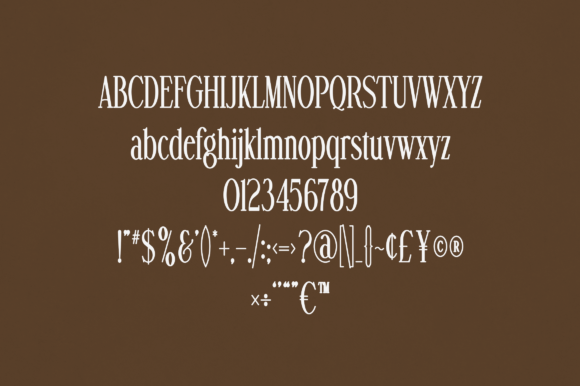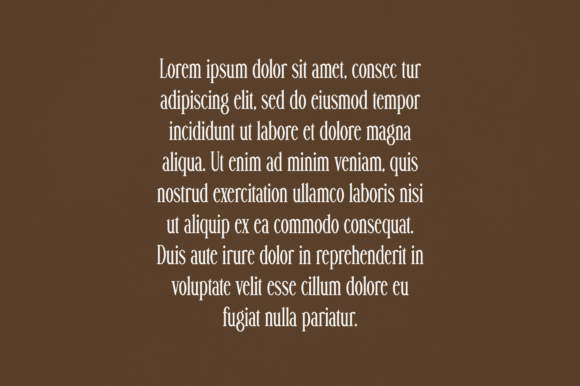
Introducing Emilien Font: Elevate Your Typography with Elegance and Versatility
In the world of typography, a font can make or break the visual identity of a design project. For designers and crafters seeking to add a touch of sophistication and uniqueness to their work, Emilien Font emerges as an exceptional choice. This elegant and versatile serif font is designed to transform your typography into something truly remarkable, making it perfect for a wide range of applications.
Unleash Your Creativity with Emilien Font
Emilien is not just a font; it’s an invitation to explore the vast possibilities of typography. Its elegant serifs bring a sense of tradition and reliability, while its versatile nature allows it to adapt seamlessly to various design contexts. Whether you’re working on a logo, branding project, headline, or plain text, Emilien Font promises to add a distinctive flair that sets your work apart.
One of the standout features of Emilien Font is its adaptability. It’s a font that can effortlessly transition from one project to another, always bringing its unique charm. Here are some of the areas where Emilien truly shines:
- Branding Projects: Establish a strong and elegant brand identity with Emilien. Its sophisticated look makes it ideal for companies looking to convey a sense of luxury, tradition, or reliability.
- Home-ware Designs: Add a touch of class to your home-ware designs. Emilien’s elegant serifs complement a wide range of styles, from modern to vintage.
- Product Packaging: Stand out on the shelves with packaging that exudes elegance and sophistication. Emilien can help elevate your product’s visual appeal.
- Magazine Headers: Create captivating headers for your magazine or editorial projects. Emilien’s versatility ensures it works well in both digital and print formats.
- Text Overlay: Use Emilien as a stylish text overlay on any background image. Its clear and elegant letterforms ensure readability while adding aesthetic value.
Why Choose Emilien Font?
Choosing a font for your project can be a daunting task, given the numerous options available. However, Emilien Font offers several compelling reasons to consider it for your next design:
- Elegance: Emilien brings an unmatched level of elegance to your typography, making your designs more engaging and sophisticated.
- Versatility: Its adaptability to various design contexts and styles makes Emilien a valuable addition to any designer’s toolkit.
- Uniqueness: With Emilien, you can ensure your typography stands out. Its distinctive serifs and stylish appearance help you create unique and memorable designs.
- Readability: Despite its elegance, Emilien maintains high readability, making it suitable for both headlines and body text.
How to Use Emilien Font Effectively
To maximize the potential of Emilien Font, consider the following tips:
- Pair it Wisely: Experiment with pairing Emilien with sans-serif fonts for a modern contrast or with other serif fonts for a layered, traditional look.
- Play with Sizes: Utilize different sizes to create visual hierarchy in your designs. Larger sizes for headlines and smaller sizes for body text can create a balanced and engaging layout.
- Adjust Line Spacing: Ensure adequate line spacing to enhance readability, especially in longer texts.
- Explore Colors: While Emilien looks stunning in classic black and white, don’t hesitate to experiment with colors that match your brand’s palette or the mood of your design.
Emilien Font is more than just a typeface; it’s a design tool that can elevate your projects to new heights of elegance and sophistication. Its versatility, combined with its elegant serifs, makes it an excellent choice for designers and crafters looking to make a lasting impression. Whether you’re aiming to create stunning branding, captivating headlines, or simply add a touch of class to your designs, Emilien Font is poised to become your go-to choice for typography that truly stands out.
Embrace the elegance and versatility of Emilien Font in your next design project and discover the difference it can make in creating typography that not only looks great but also communicates effectively and memorably.